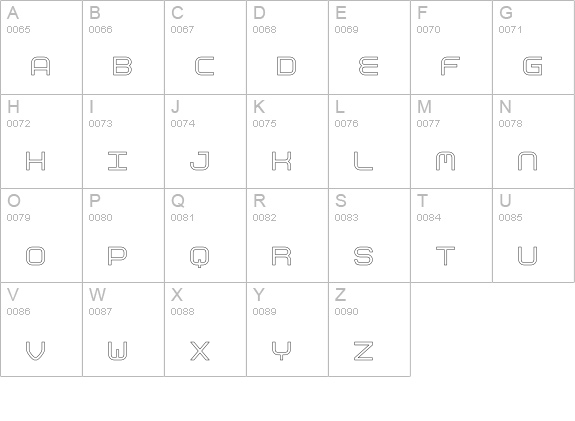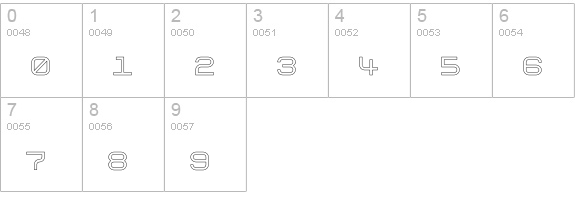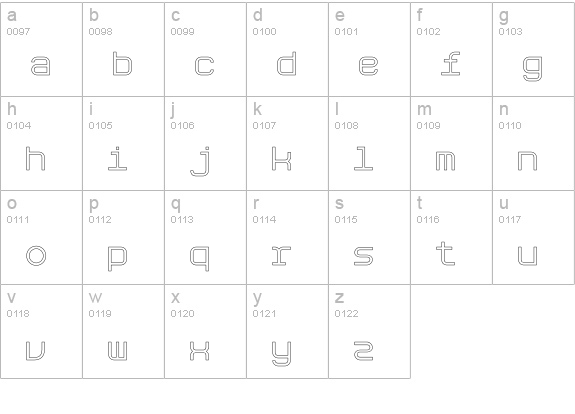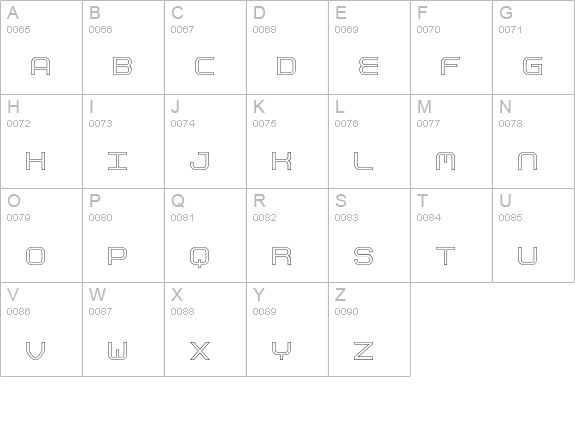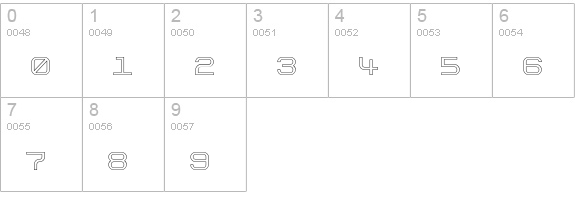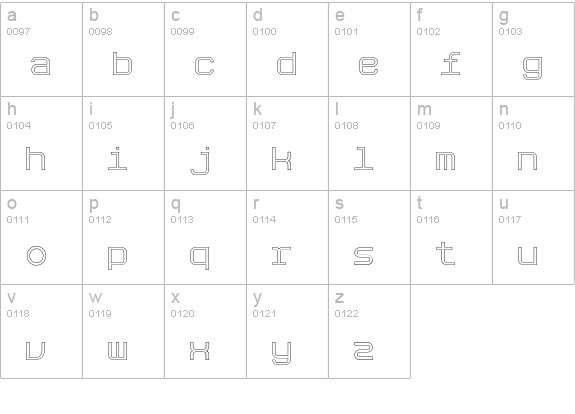
Aspirin-Refill-Irregular Font Details
Introducing Aspirin Refill Irregular font, a unique and modern typeface that exudes creativity and innovation. This font features irregular shapes and lines, adding a touch of edginess to any design project. With its bold and eye-catching appearance, Aspirin Refill Irregular font is perfect for making a statement and standing out from the crowd. But the best part? It's completely free to download at FontsMarket.com! This means you can easily access this stylish font and incorporate it into your various design projects without any cost. Whether you're working on branding, advertising, or any other creative endeavor, Aspirin Refill Irregular font is sure to add a touch of sophistication and flair. Don't miss out on this fantastic opportunity to enhance your designs with this striking font. Download Aspirin Refill Irregular font for free today at FontsMarket.com and let your creativity shine!